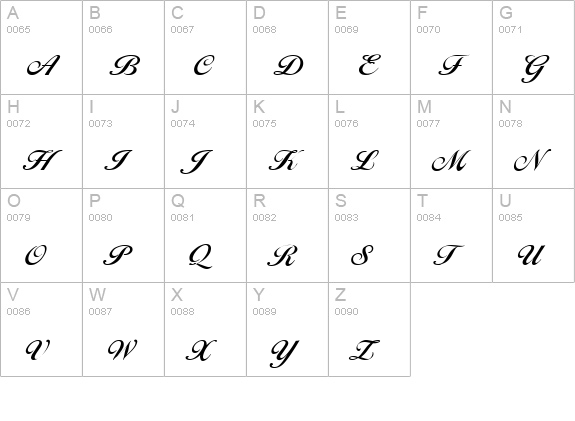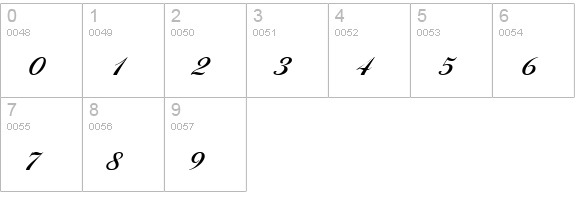
Liffey Script SF Font Details
Liffey Script SF font is a charming and elegant script typeface that exudes sophistication and style. With its fluid strokes and graceful curves, this font is perfect for adding a touch of class to any design project. Whether you're creating invitations, logos, or branding materials, Liffey Script SF font will elevate your work to the next level. The best part about Liffey Script SF font is that it is completely free to download. You can access this stunning typeface at FontsMarket.com, where you can easily download and start using it in your projects right away. Don't miss out on this opportunity to add a touch of elegance to your designs with Liffey Script SF font.